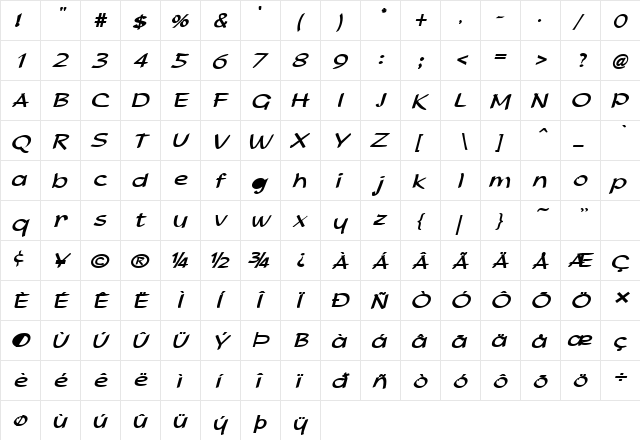
Parson-Extended Bold Italic
Design Context for Parson-Extended Typeface
Parson-Extended offers clean, dependable letterforms without strong stylistic allegiance, making it a practical choice for designers who need flexibility. The dynamic lean of this cut emphasises speed and emphasis in any layout. The heavy weight commands attention and anchors typographic hierarchies.